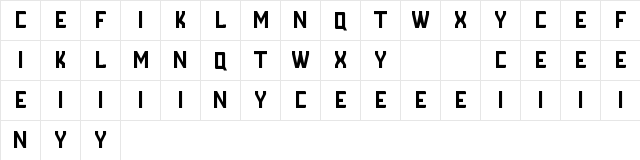
FORNEVER DEMO Regular
| Foundry | Edric Studio |
| Designer | M Nouval |
Design Context for FORNEVER DEMO Typeface
FORNEVER DEMO is a composed and adaptable typeface that performs quietly and consistently across a wide range of design contexts.